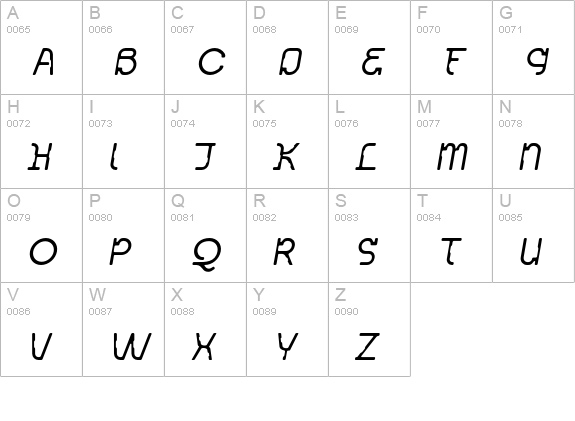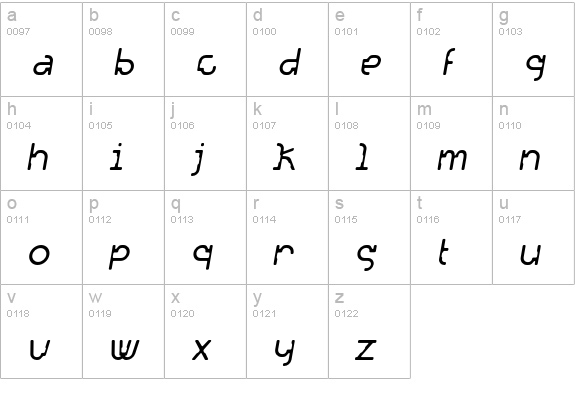
Acetone-Oblique is a distinctive, italic variant in the Acetone typeface family \xE2\x80\x94 well suited to design and typography projects.
Acetone-Oblique font exudes a sense of modern sophistication with its sleek and stylish design. The oblique angle adds a dynamic touch to each letter, making this font perfect for adding a contemporary flair to any project. The clean lines and sharp edges give Acetone-Oblique a professional and polished look that is sure to catch the eye. Best of all, Acetone-Oblique is available for free download at FontsMarket.com. This means you can easily access this stunning font and use it in your designs without any cost. Whether you're working on a branding project, creating eye-catching graphics, or designing a sleek website, Acetone-Oblique will elevate your work to the next level. Download this font today and see the difference it can make in your designs.